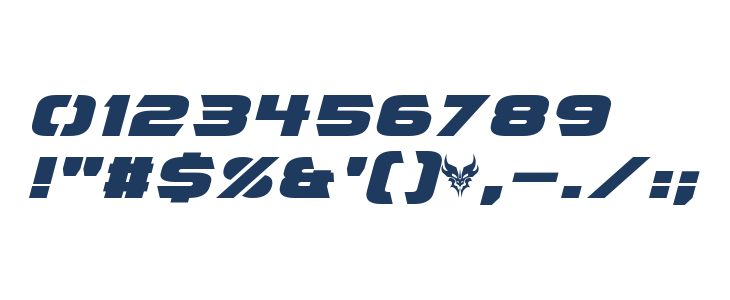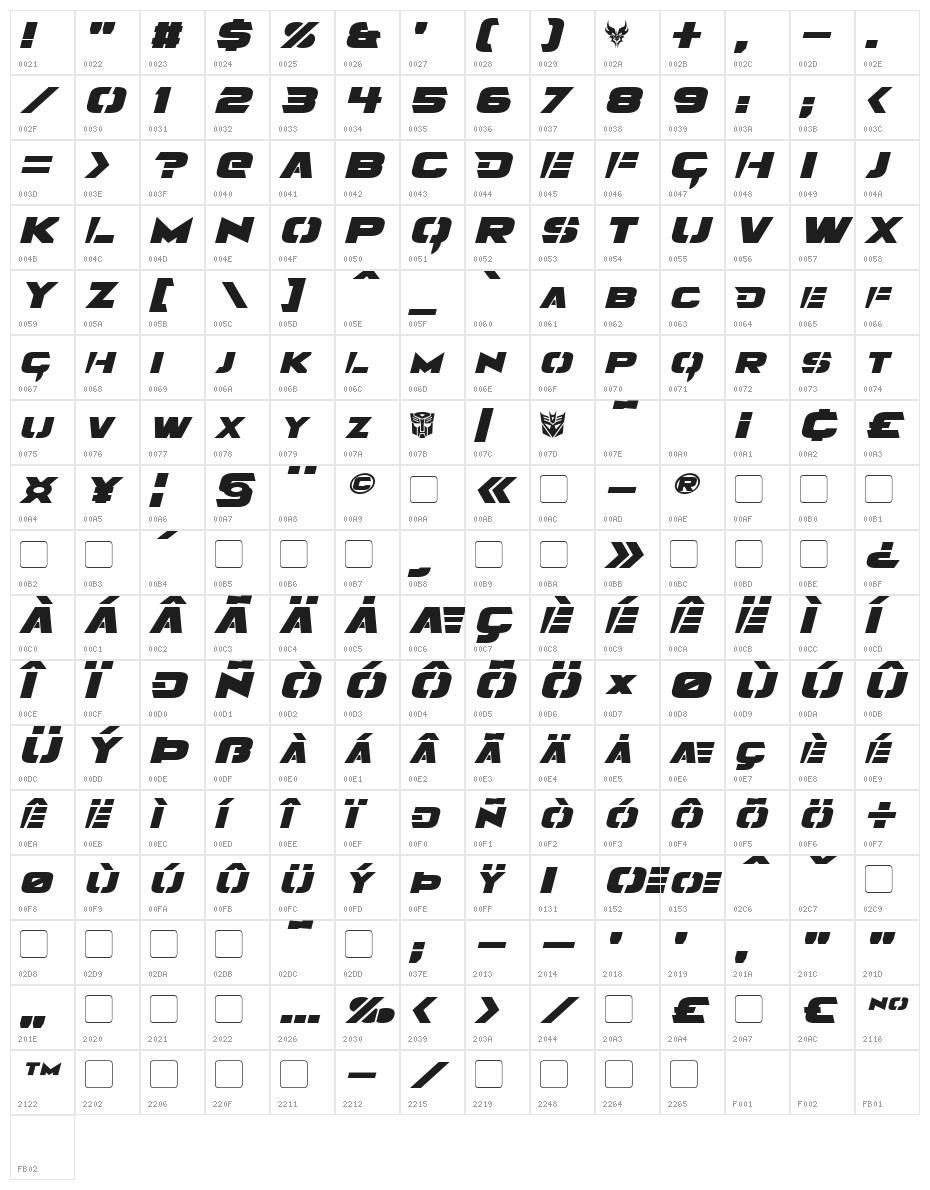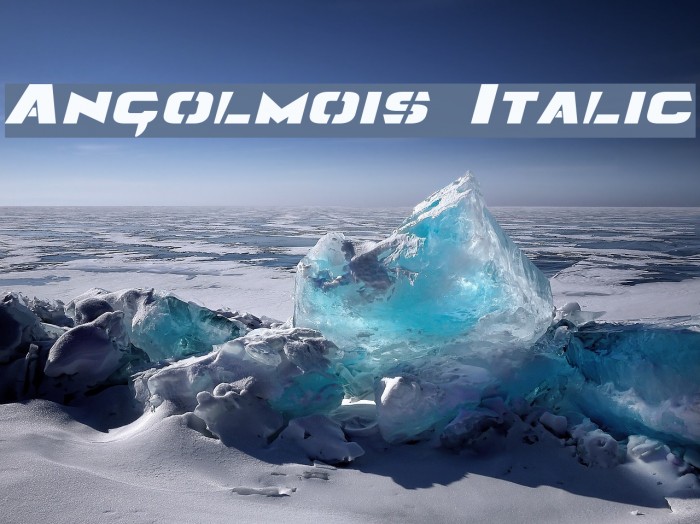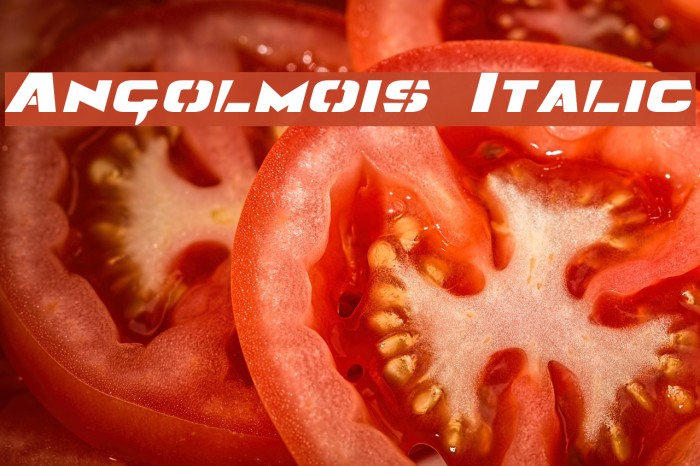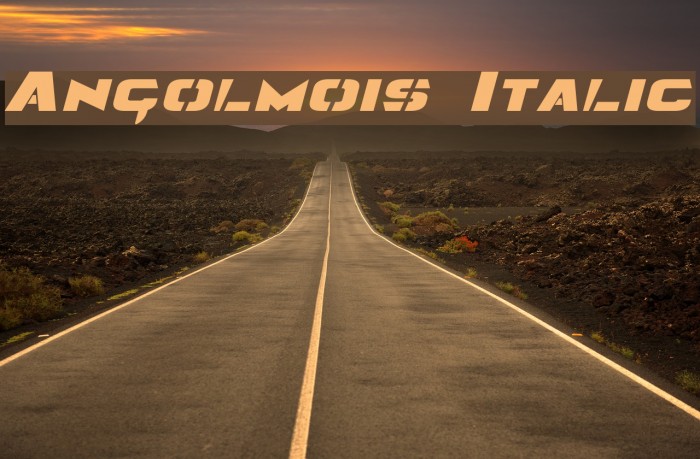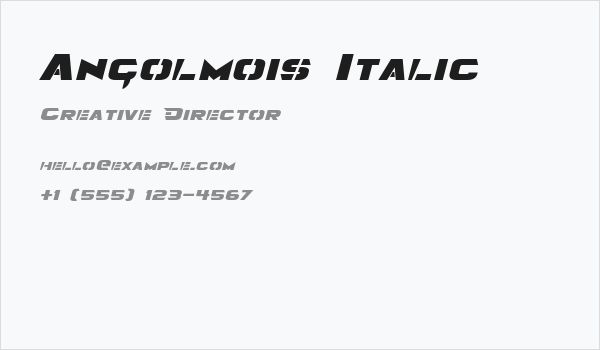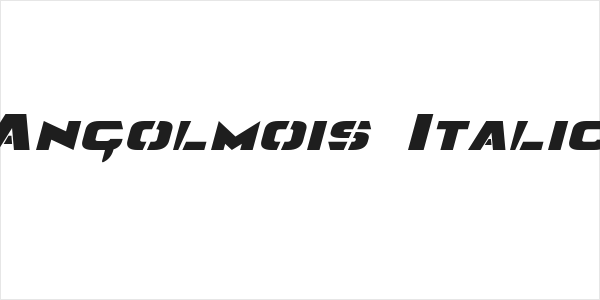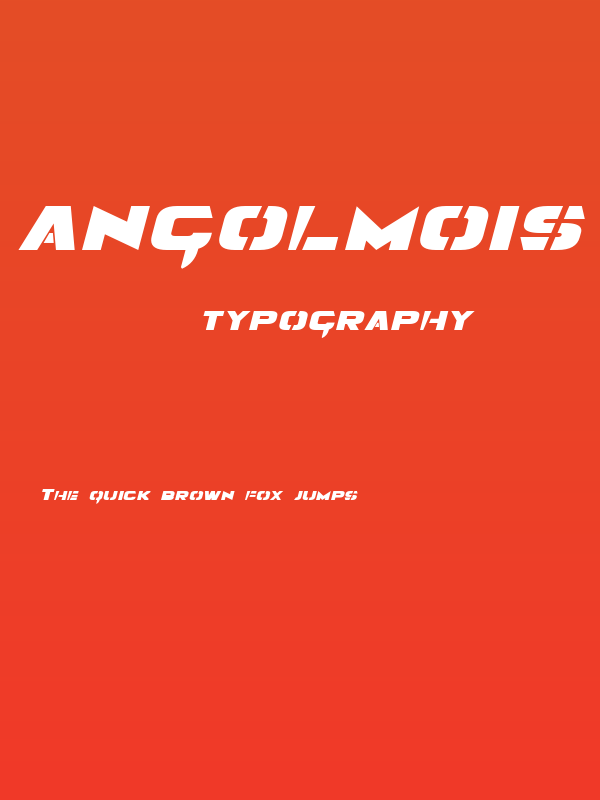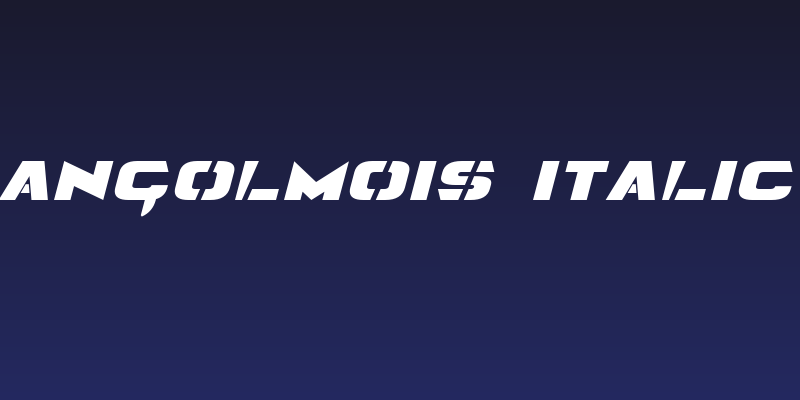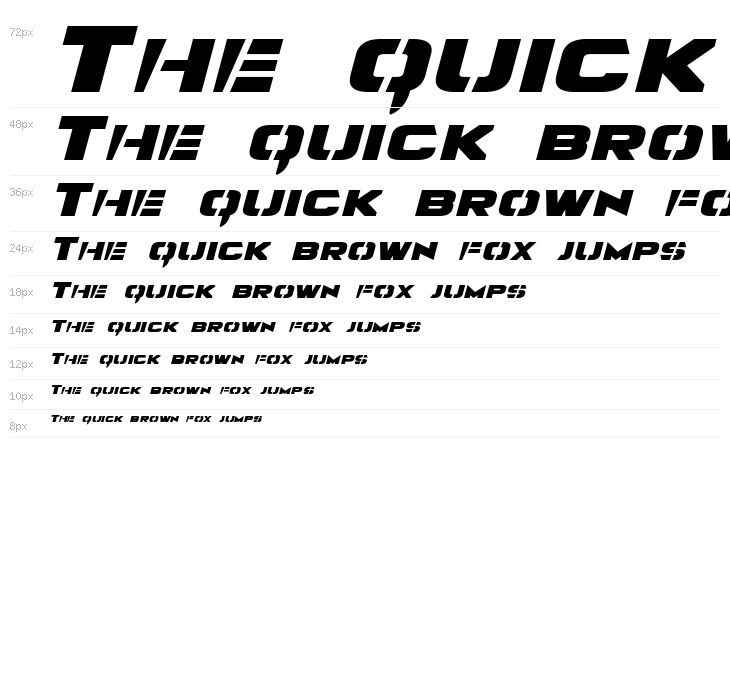
Angolmois Italic Font
Angolmois Italic Description
This font features a bold and dynamic style with a futuristic flair. The characters are sharply angled and italicized, giving a sense of motion and energy. The uppercase letters are particularly striking, with unique cutouts and geometric shapes that add to the modern aesthetic. The numbers and special characters maintain this theme, ensuring consistency across all glyphs. The font's aggressive and edgy appearance makes it stand out, ideal for projects that require a strong visual impact.
| Proposed Projects | Ideal for sci-fi themed posters, video game titles, branding for tech companies, and any project needing a modern, edgy look. |